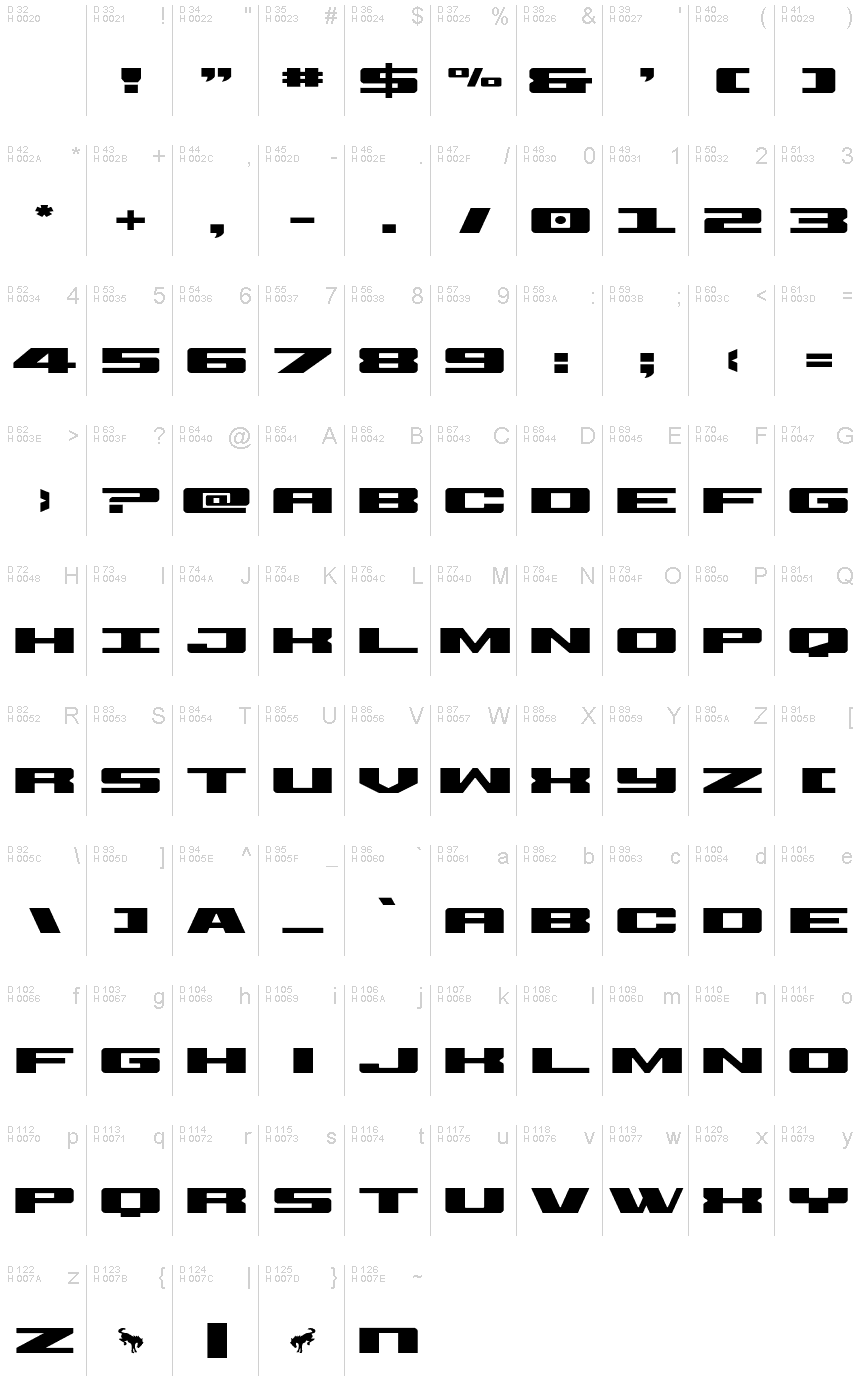
Buckin' Bronc Title Expanded
Buckin' Bronc Title Expanded leaps off the page with its extra-bold, techno-inspired contours that harness the untamed spirit of Iconian Fonts' Buckin' Bronc family.
This display font's extra-expanded width commands attention, making it an ideal choice for high-impact headlines and branding where a robust, futuristic edge is essential. Its distinctive character shapes are perfectly suited for projects aiming to stand out in the digital frontier – from gaming interfaces to avant-garde advertising campaigns.
Embrace the strength and style of Buckin' Bronc Title Expanded and let your creative works gallop into a realm of extraordinary visual appeal.